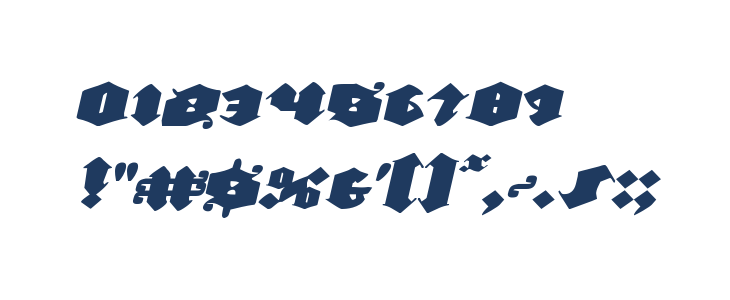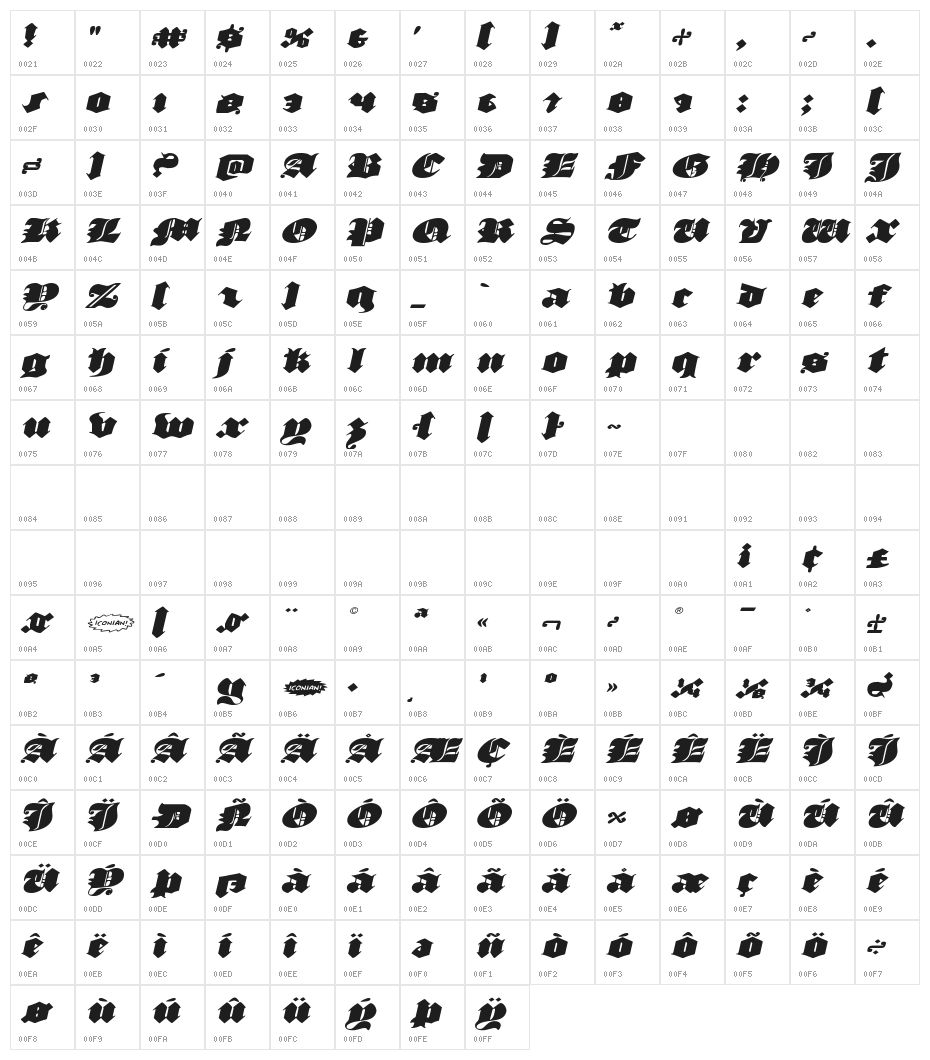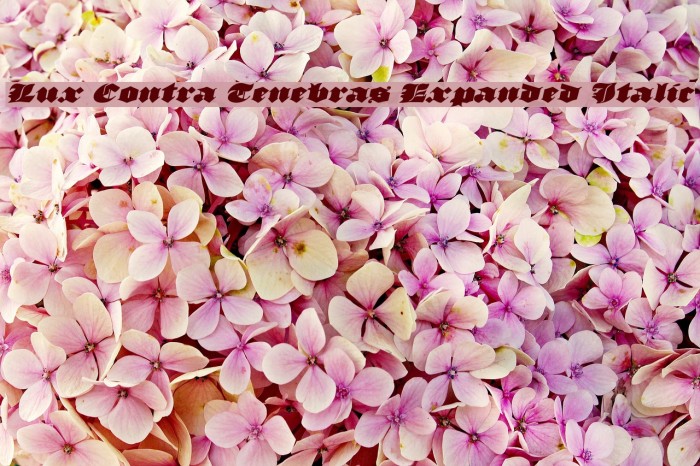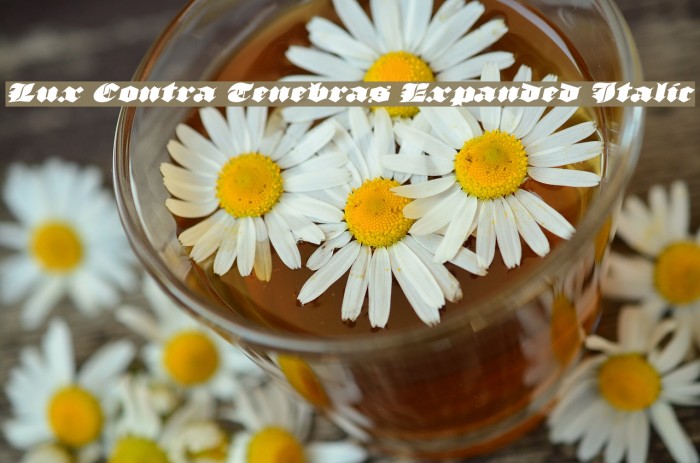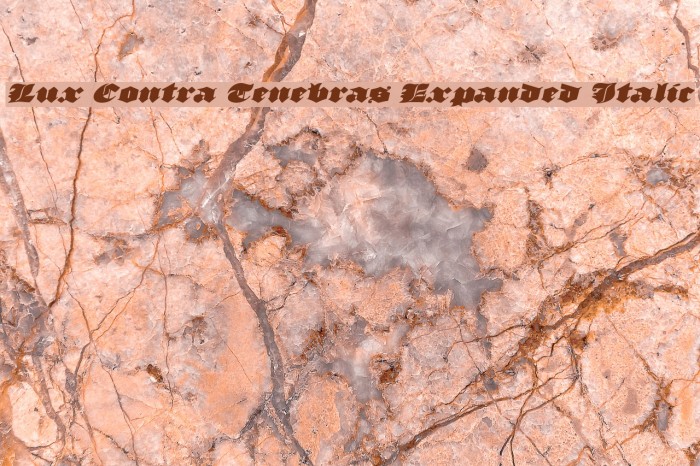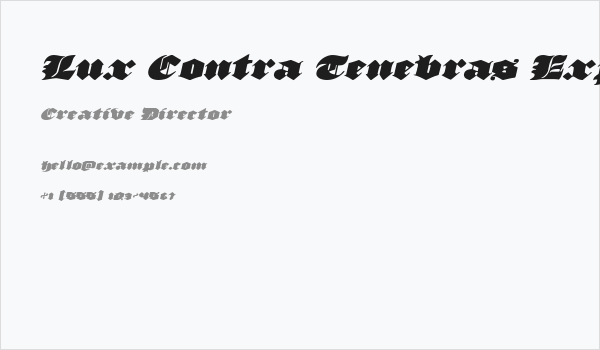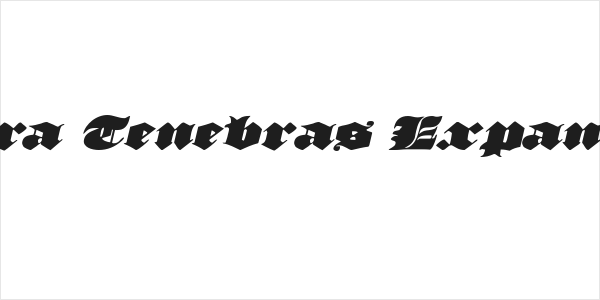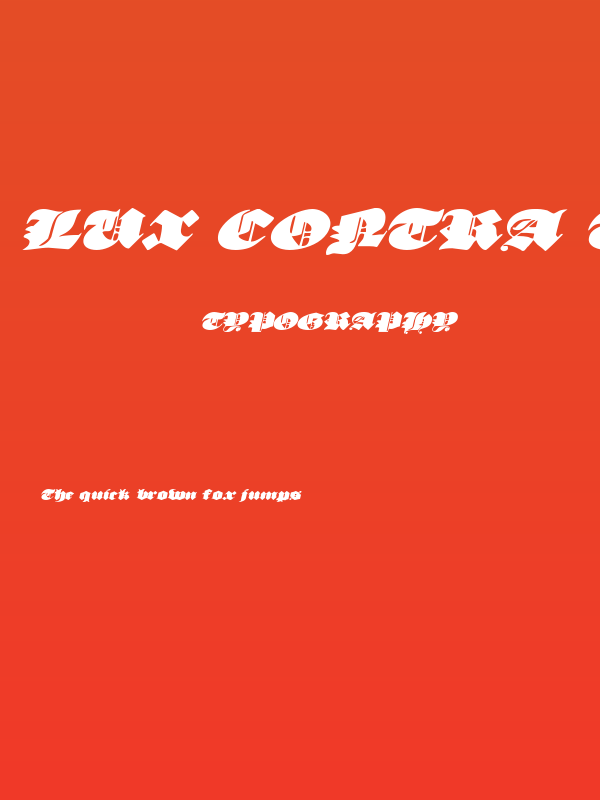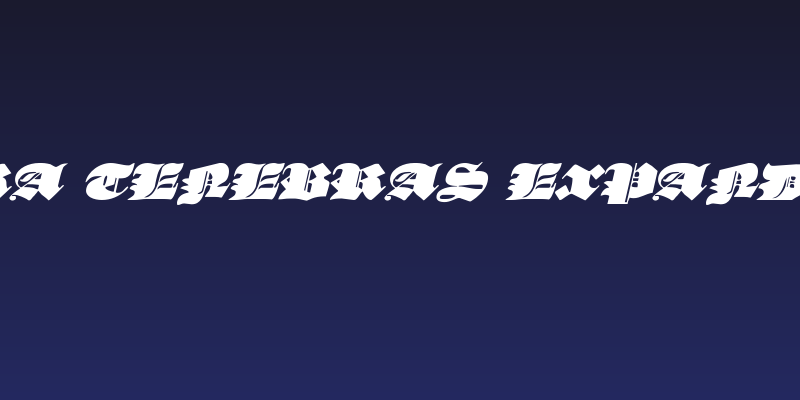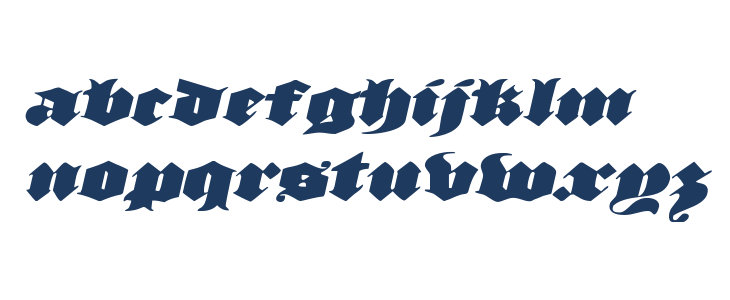
Lux Contra Tenebras Expanded Italic Font
Lux Contra Tenebras Expanded Italic Description
This font exhibits a bold and dramatic style, reminiscent of traditional Blackletter typography. The characters are intricately designed with sharp, angular lines and elaborate flourishes, giving it a gothic and medieval appearance. The uppercase letters are particularly ornate, featuring pointed serifs and decorative elements. The lowercase letters maintain a consistent style, with a slightly condensed form that enhances readability. The numbers are bold and match the overall aesthetic, while the special characters are uniquely styled to complement the font's theme. This font's expanded width and italic slant add to its dynamic and striking presence.
| Overall Style | Gothic, Medieval |
| Use Case | Headlines, Logos, Decorative text |
| Proposed Projects | Ideal for projects requiring a historical or medieval theme, such as book covers, posters, or branding for events with a vintage or gothic aesthetic. |